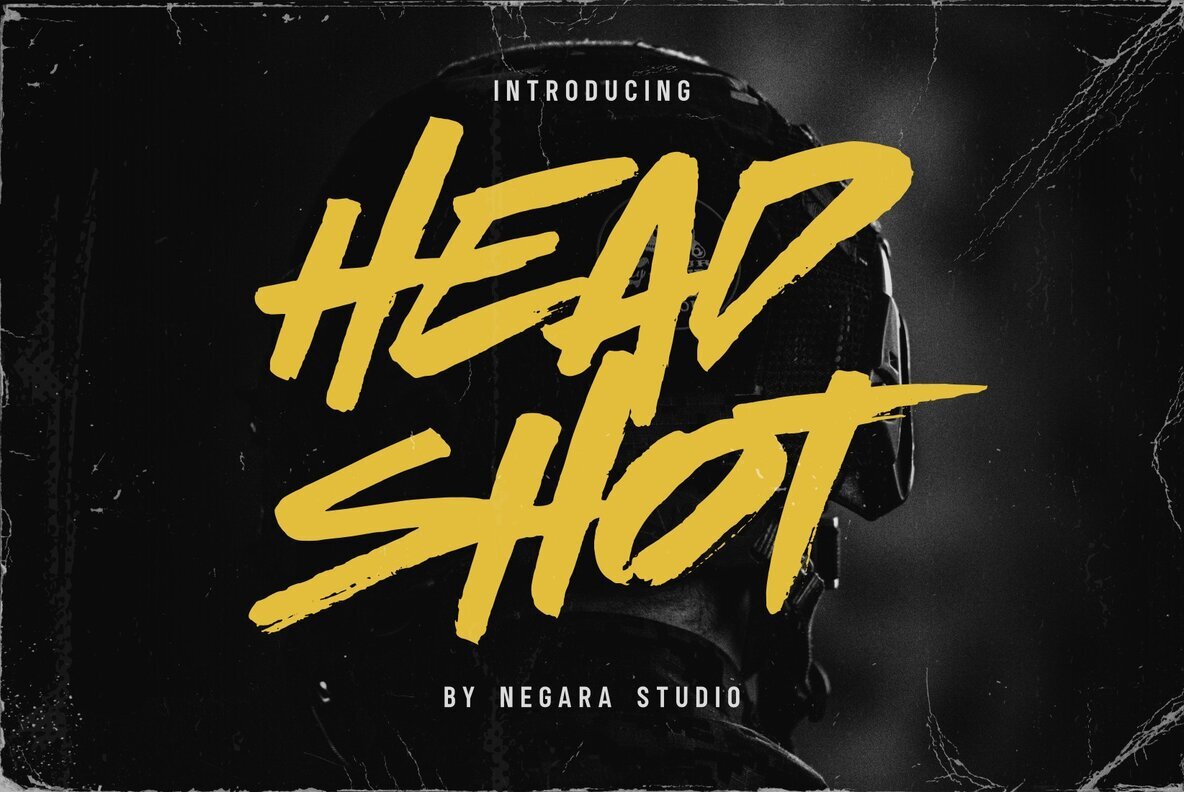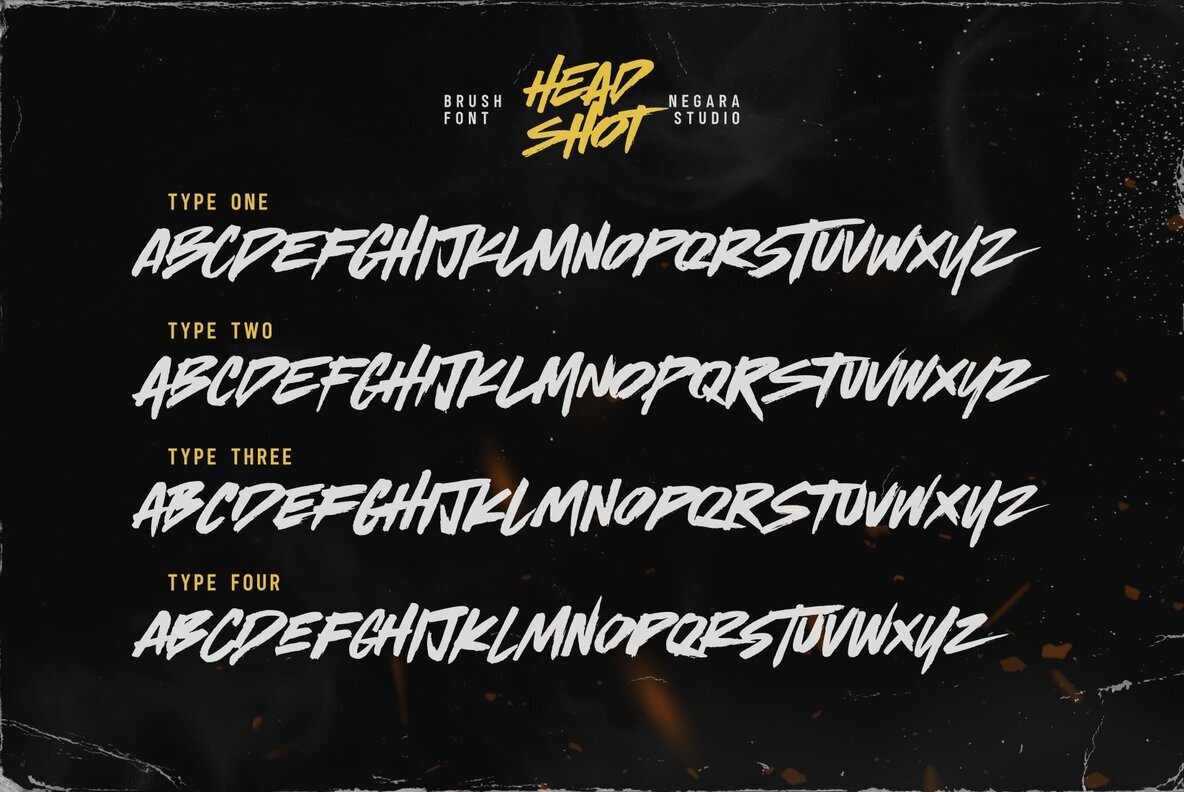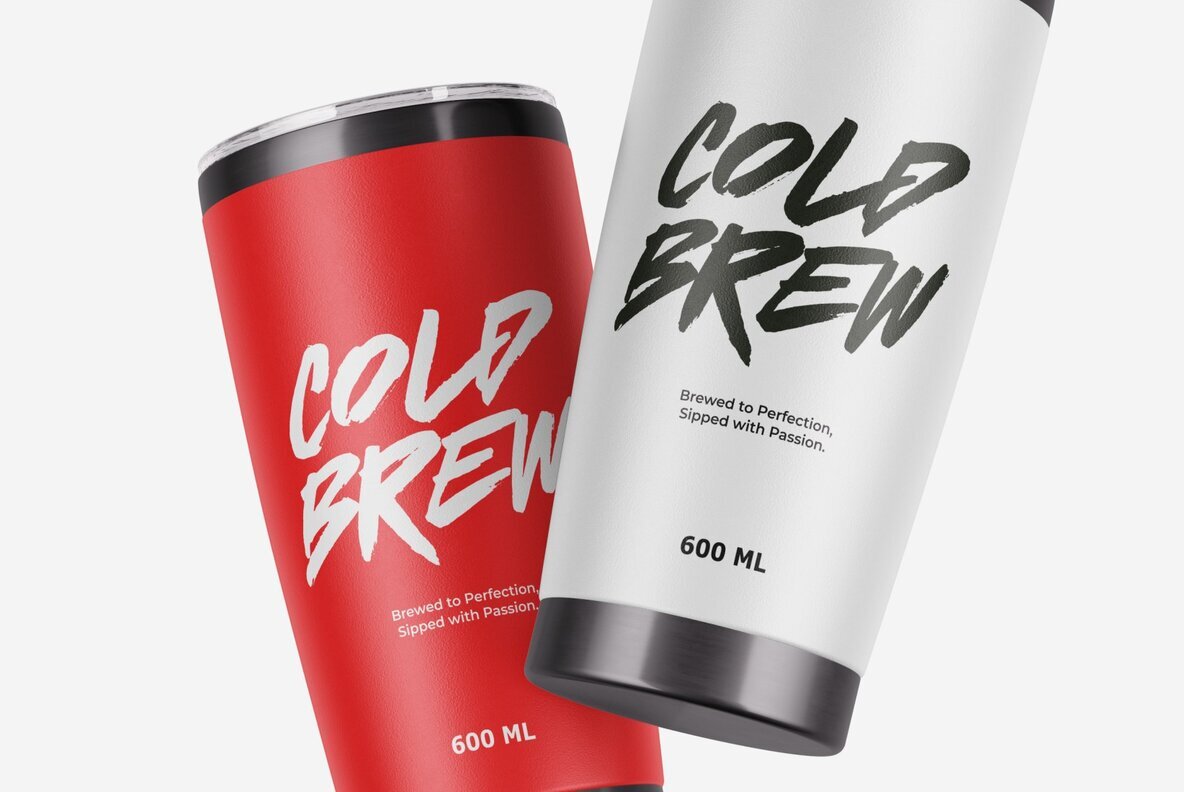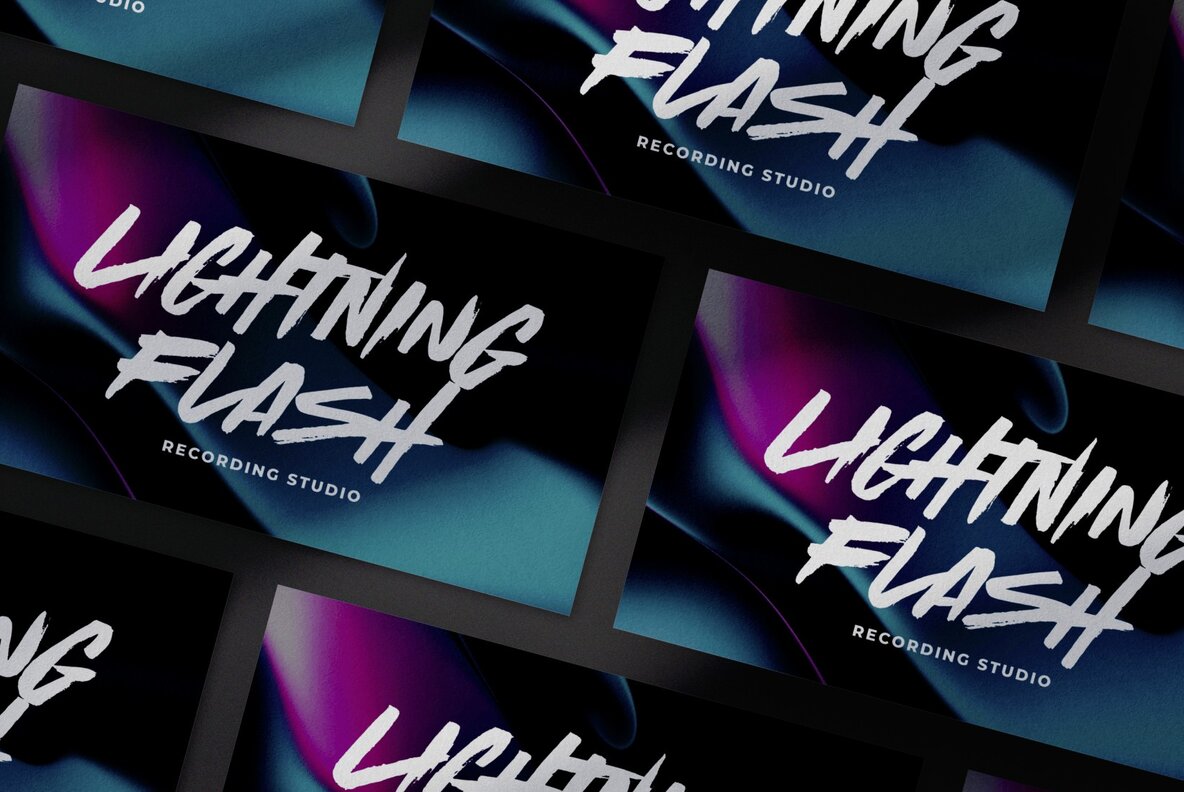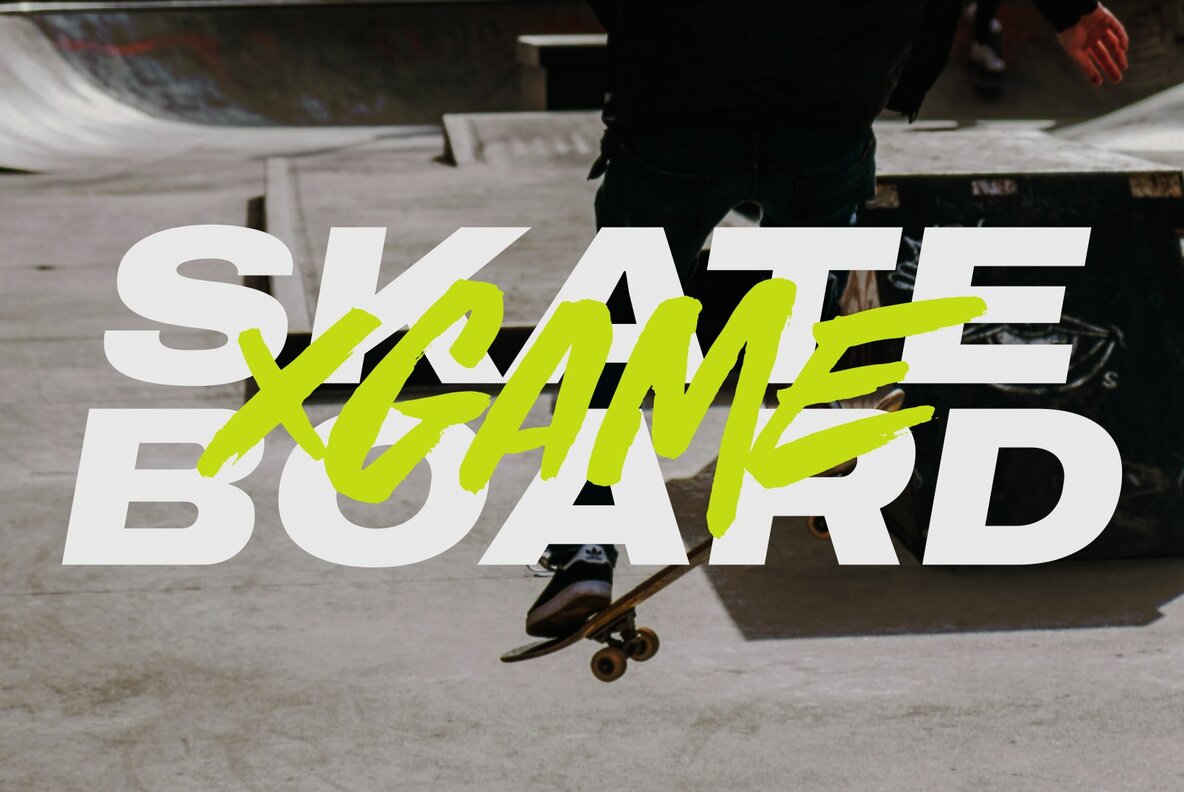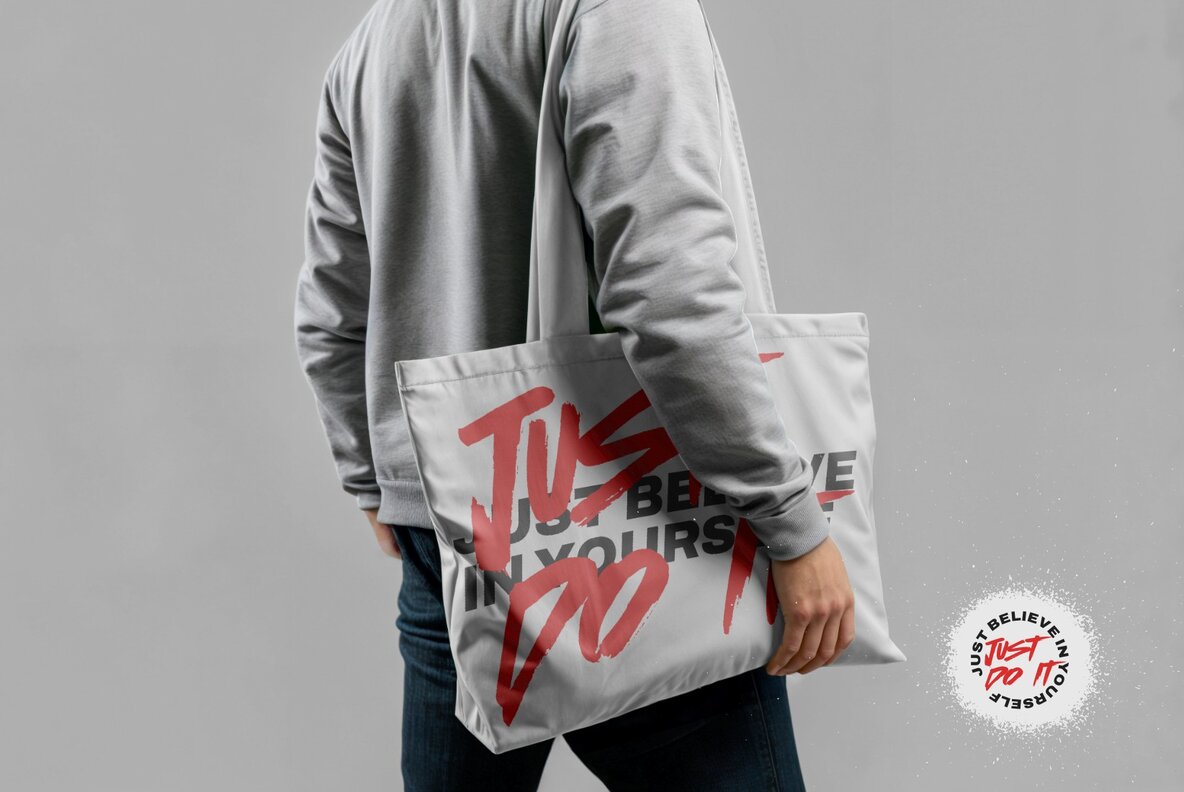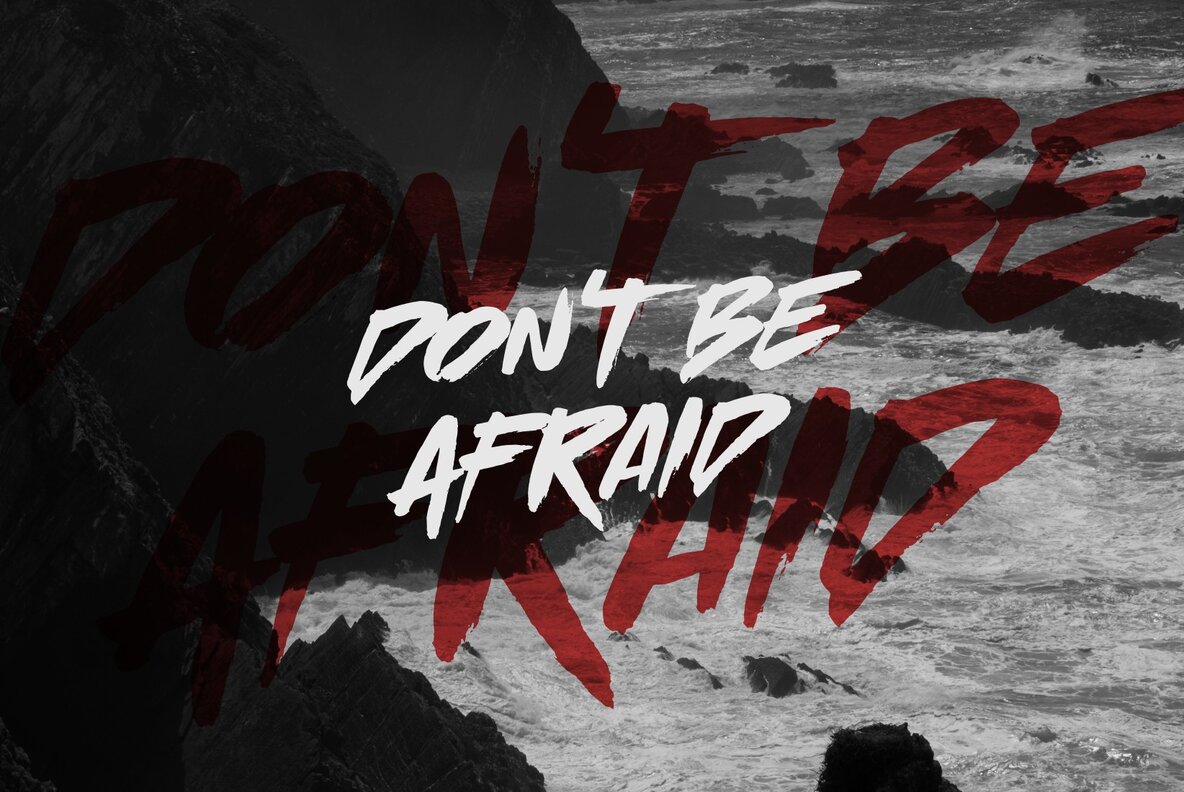
Head Shot Font
Head Shot
The Head Shot font exudes a dynamic charisma with its bold, rough style, meticulously crafted to evoke the raw aesthetic of wet brush strokes. Its dense texture is achieved through the authentic technique of ink-soaked brushes, making it an ideal choice for logo creation, product branding, and more. It seamlessly enhances printable templates, posters, shirts, or any text overlays on background images. This font is presented in all caps, complete with punctuation, numbers, and inclusive multilingual support. Head Shot effortlessly integrates with major graphic software such as Adobe Illustrator, Photoshop, and InDesign, as well as Microsoft Word. Importantly, any images depicted in preview illustrations are solely for demonstration purposes and are not included. Embrace the expressive potential of Head Shot across languages including English, French, Spanish, German, and many more, expanding your design flexibility.Head Shot: Bold Handwritten Font with Rough Brush Texture